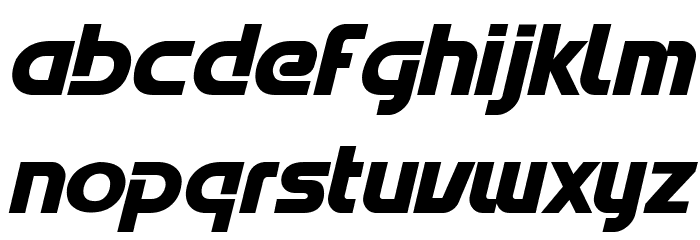
Spantaran Font
This font features a modern and dynamic design with a forward-leaning, italicized style that conveys a sense of motion and speed. The characters are bold and slightly condensed, giving them a strong presence on the page. The strokes are consistent in weight, providing a uniform appearance across all characters. The angular cuts and sharp edges add a futuristic and edgy feel, making it suitable for contemporary designs. The font maintains a clean and professional look, with medium contrast in stroke thickness, ensuring readability while retaining its unique style.
A bold, italicized font with a modern, dynamic design and angular edges.
- Font: Spantaran
- Proposed Projects: Ideal for branding, sports team logos, automotive designs, and tech-related projects.
- Category: Sans-Serif
- Use Case: Logos, Headlines